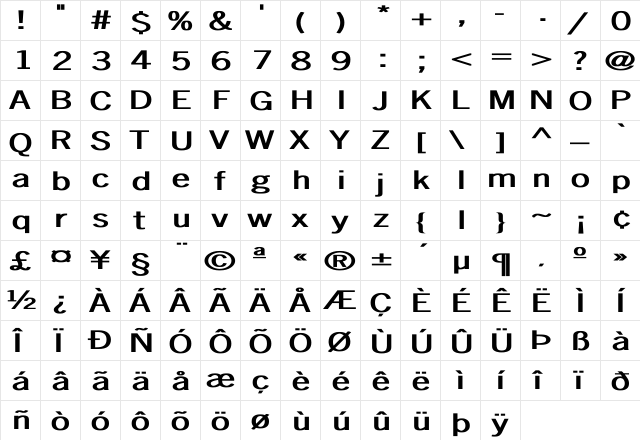
NewsGothic Ex Bold Bold Font Preview
NewsGothic Ex Bold Bold
NewsGothic Ex Bold Bold Font Details
Design Context for NewsGothic Ex Bold Typeface
NewsGothic Ex Bold takes a clean, functional approach — its unadorned letterforms prioritise legibility and work reliably across screen and print environments. Its bold stroke weight gives it real presence on the page.
A strong choice for UI design, app interfaces, bold signage, and corporate brand systems.
Font Pairing: Use NewsGothic Ex Bold for headlines alongside a lighter-weight sans or serif for body copy to establish clear visual hierarchy.
Pro Tip: Pair NewsGothic Ex Bold with a display or serif font for headlines — its neutral character makes it an excellent supporting player in complex typographic systems.